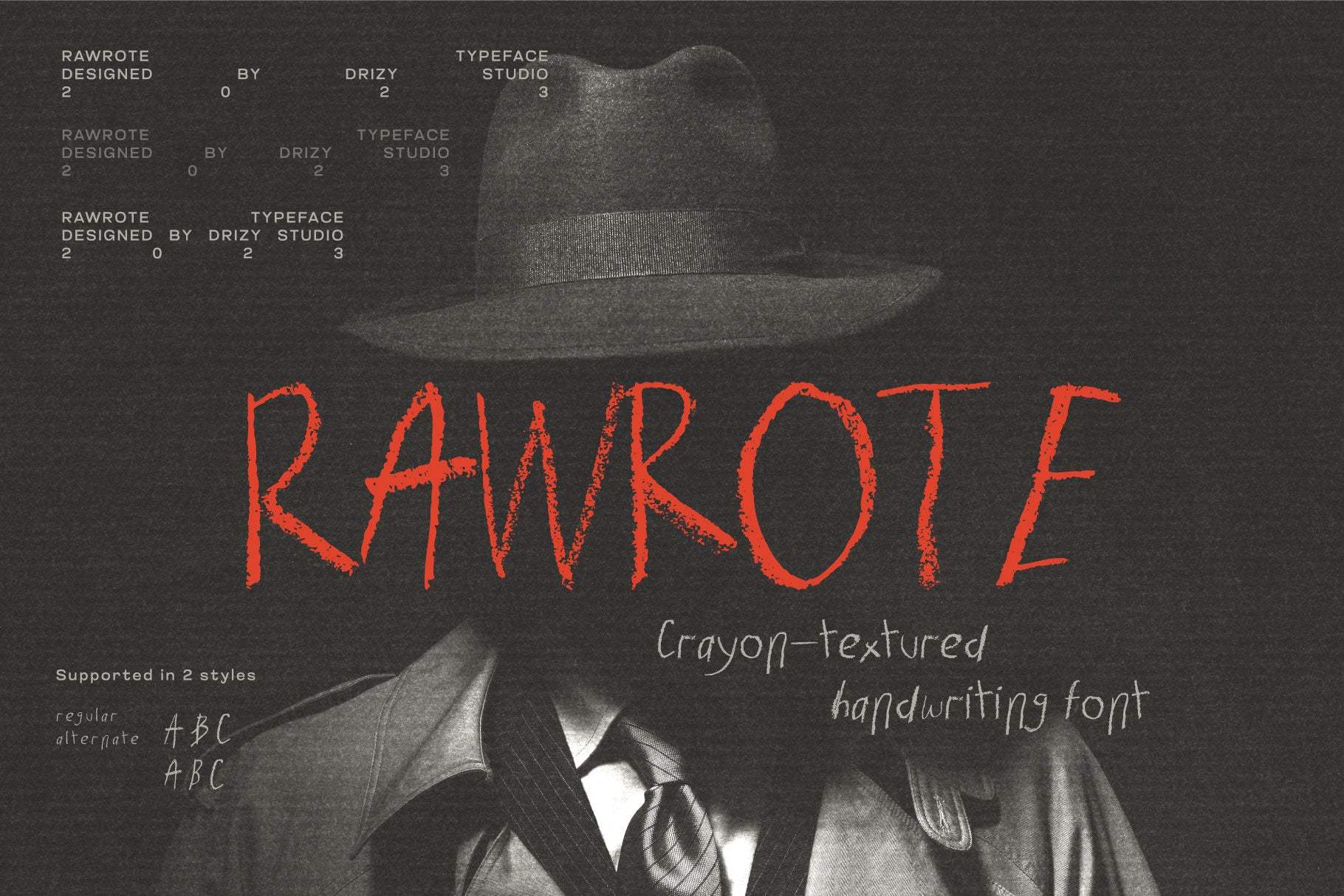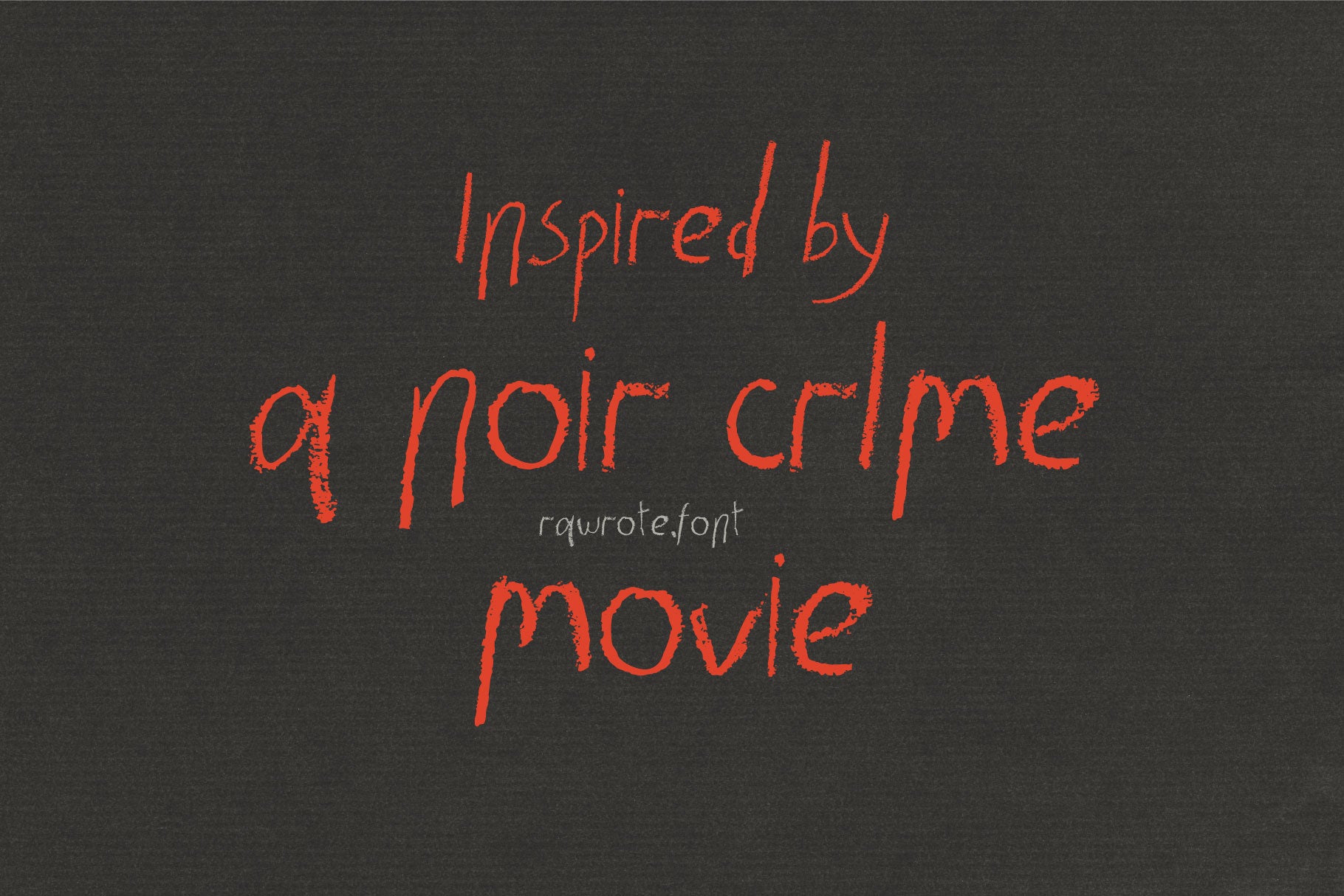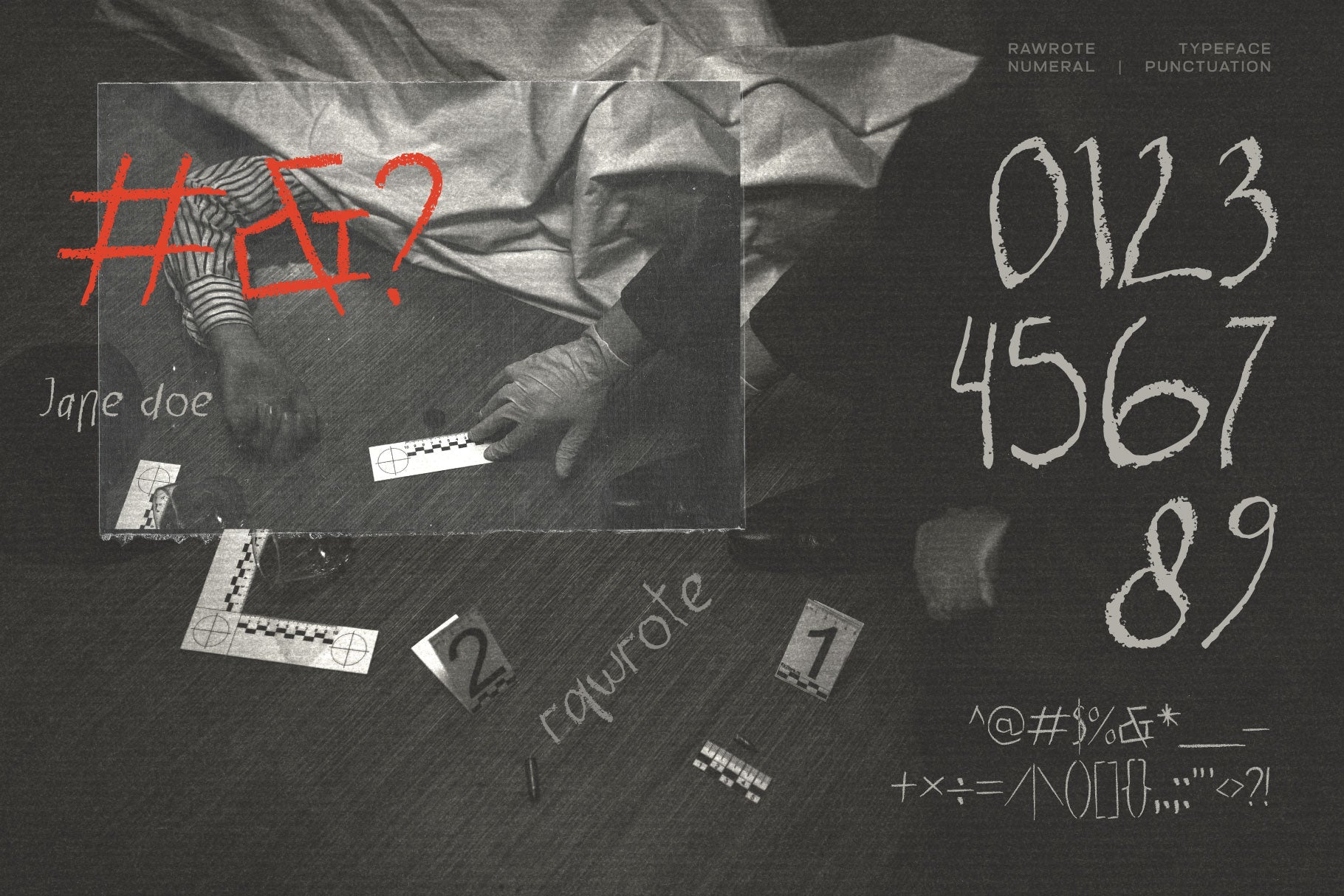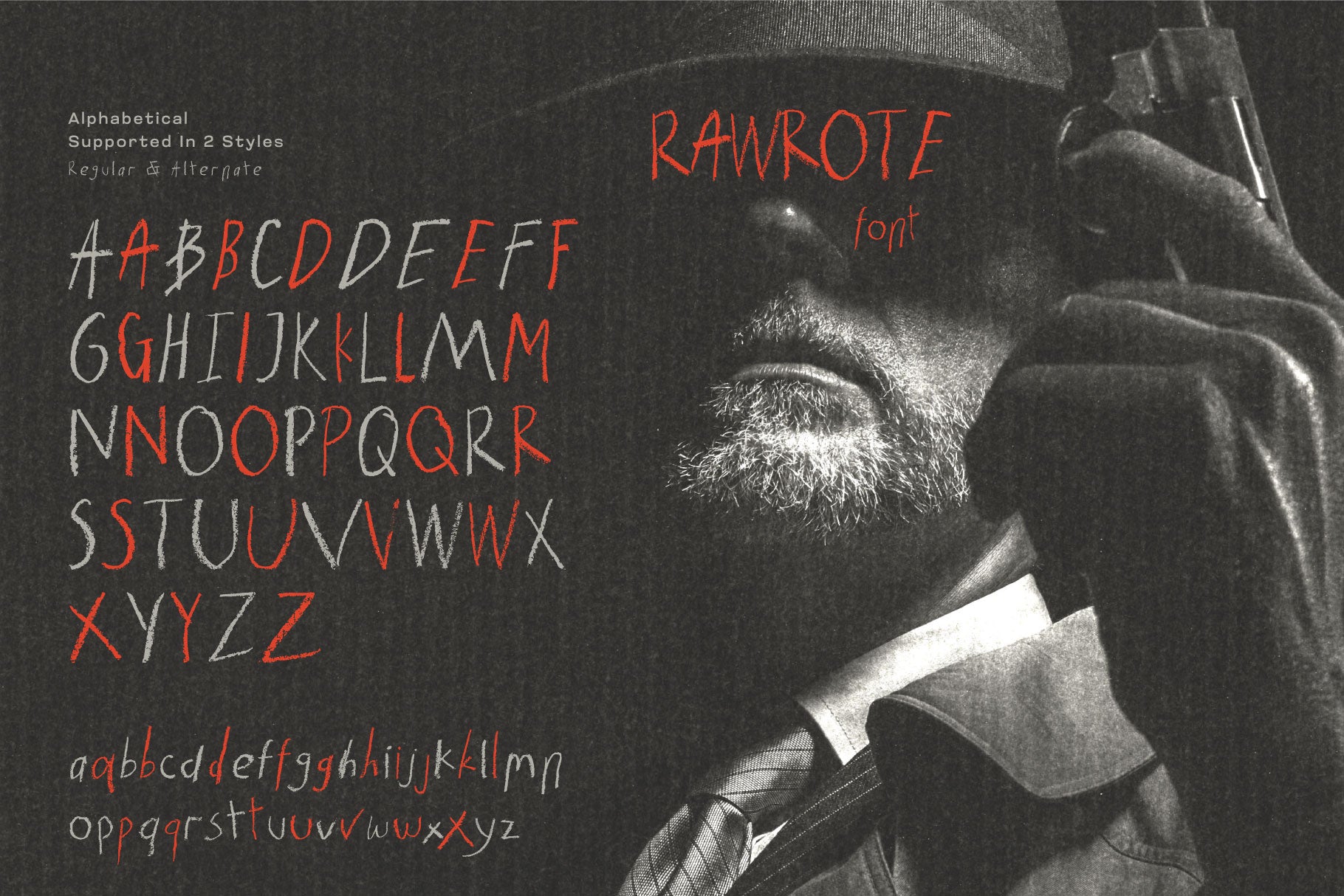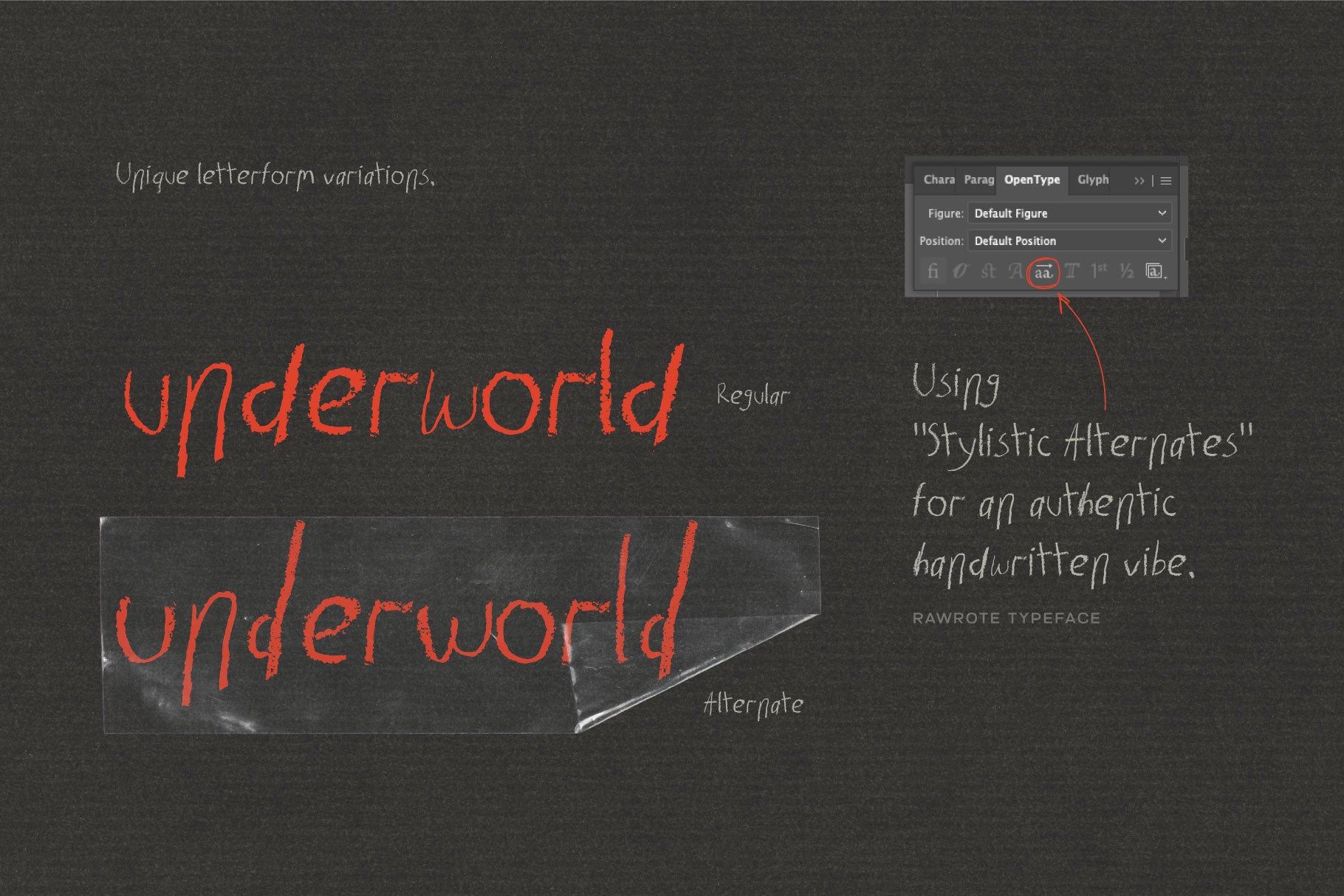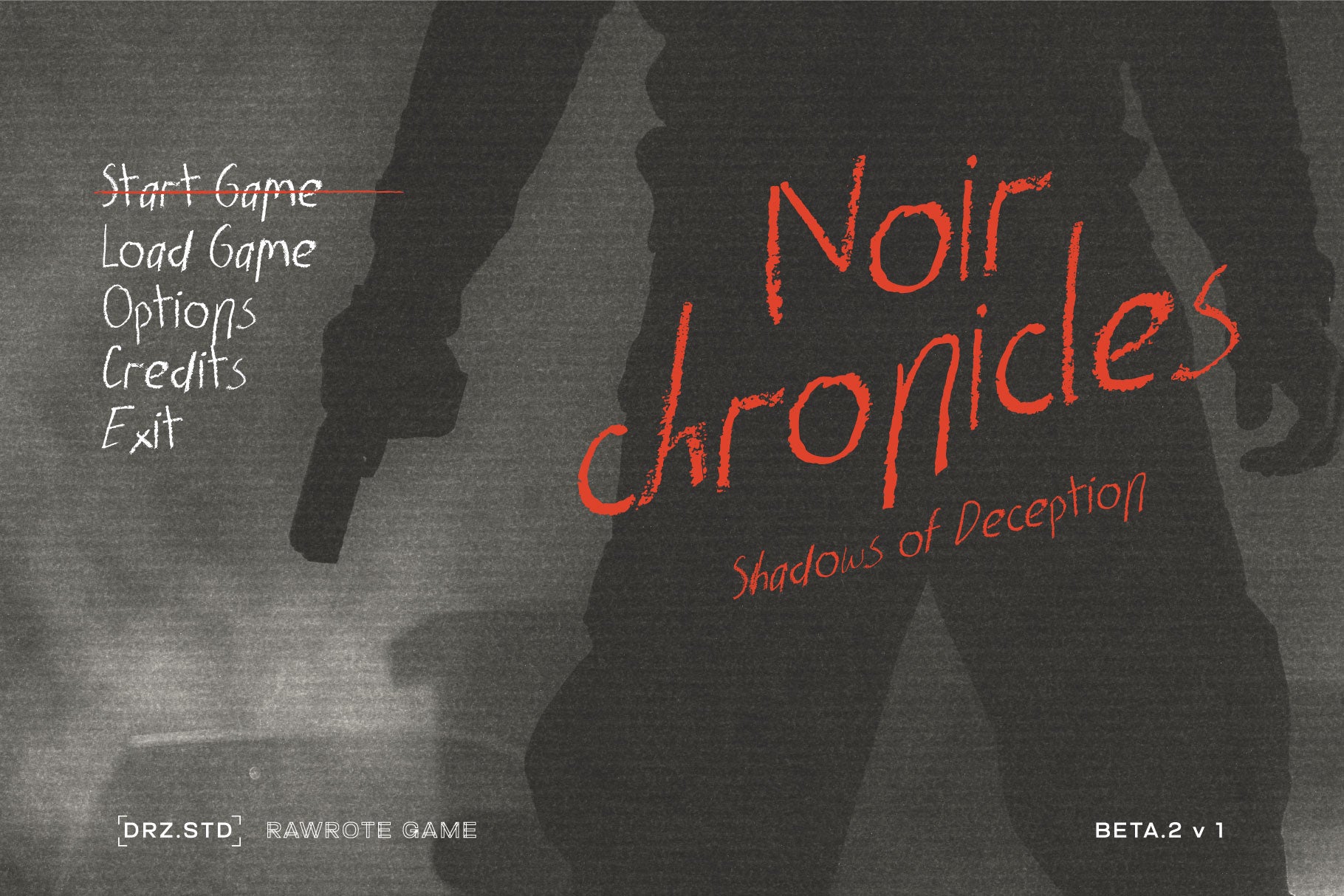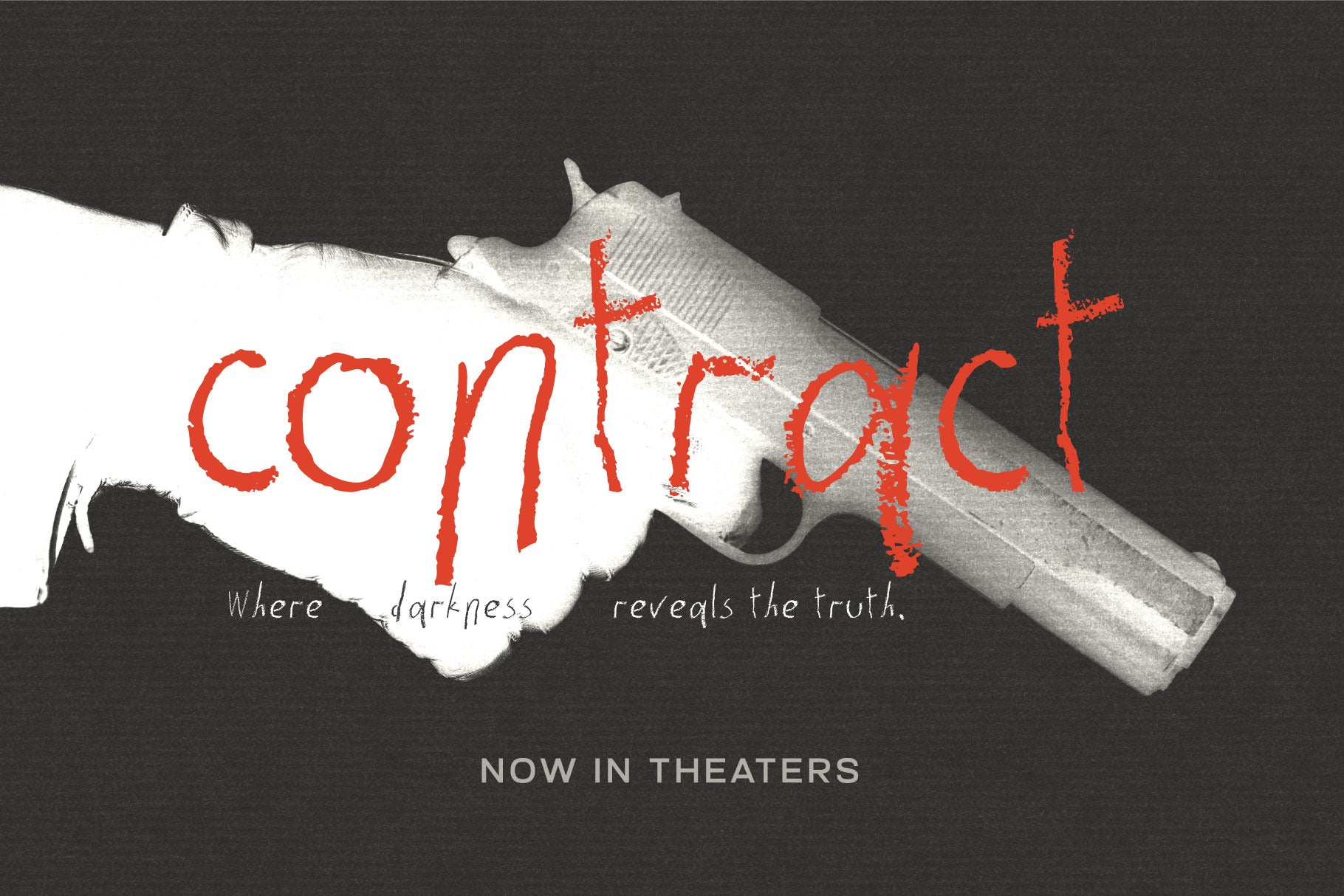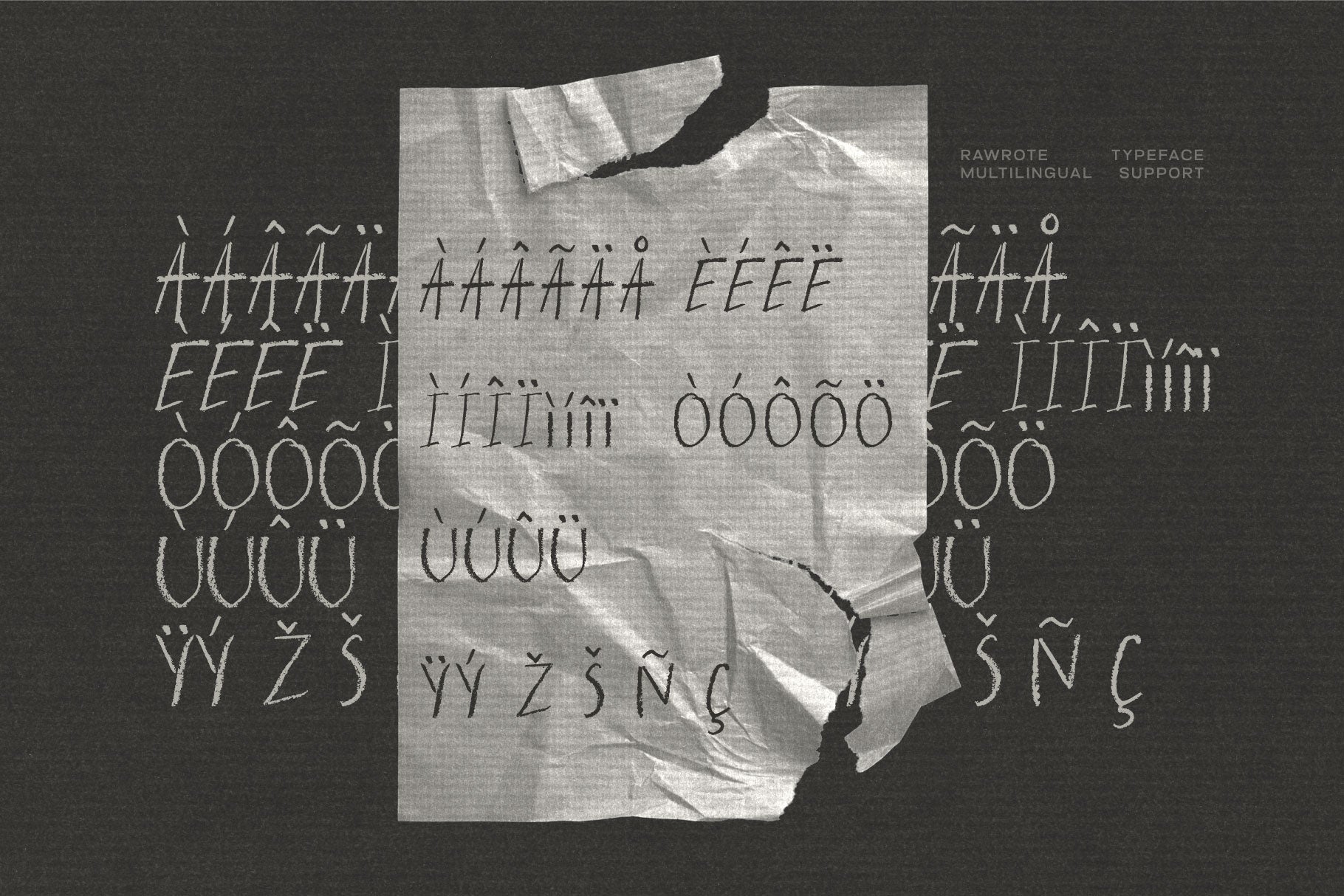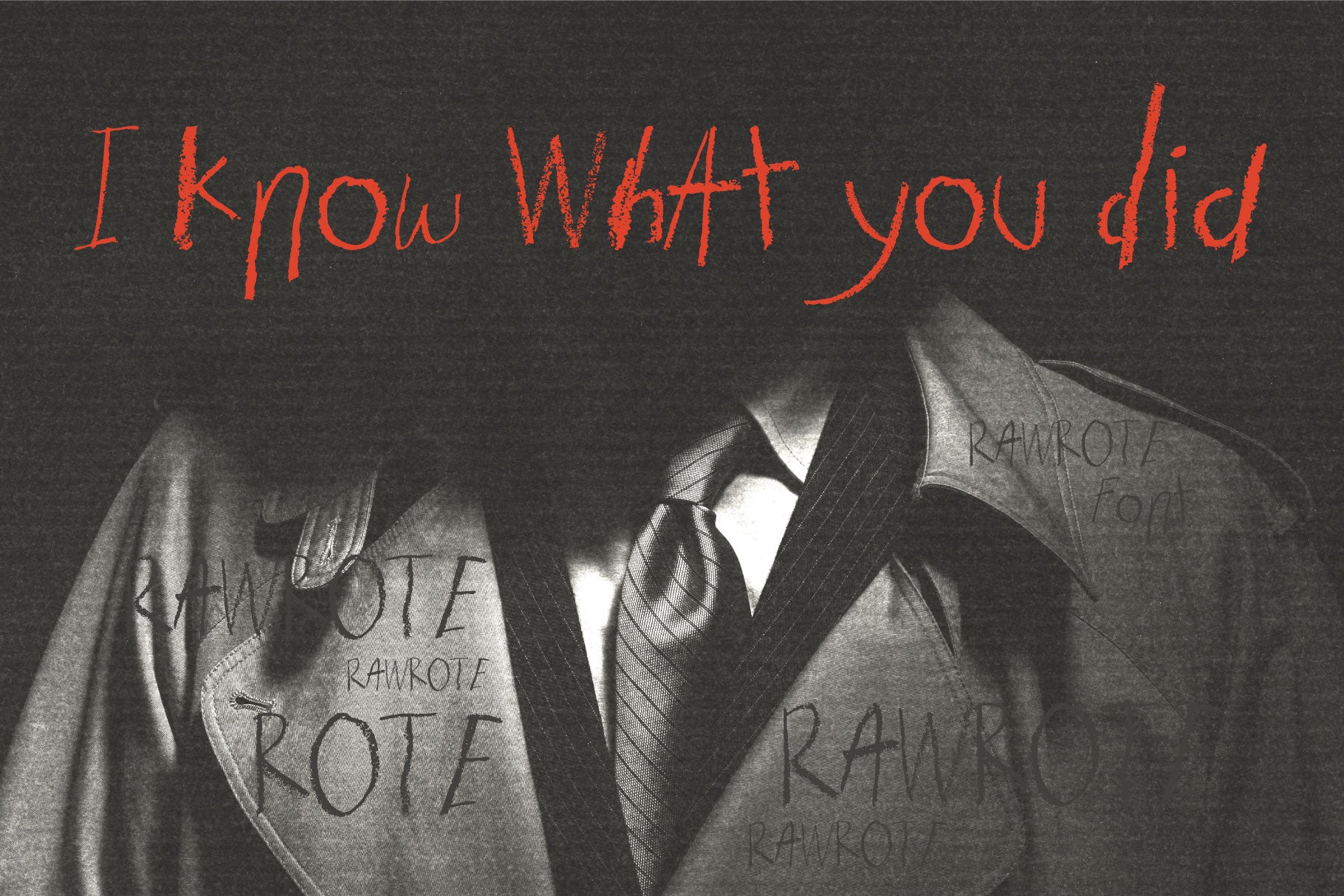
Rawrote - Crayon-Textured Font
Rawrote - Crayon-Textured Handwriting Font
Introducing Rawrote, a captivating and unique Crayon-Textured Handwriting Font that adds a horror touch to your projects. This hauntingly unique typeface combines the raw and unsettling texture of crayons with the unsettling aesthetic of horror, creating an atmosphere of mystery and fear.
Rawrote features:
Character Set
Punctuation & Numbers
Alternates
Elevate and explore the design possibilities with this Handwriting Font!
Rawrote is a crayon-textured handwriting font that features a complete character set, punctuation, numbers, multilingual support, and alternates. This unique typeface combines a raw texture with a horror aesthetic, offering a distinctive option for various design projects.